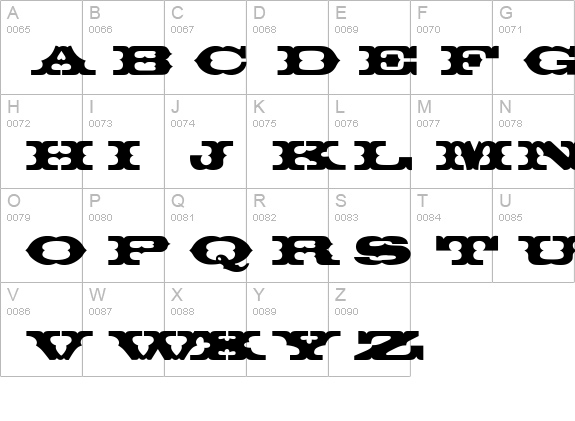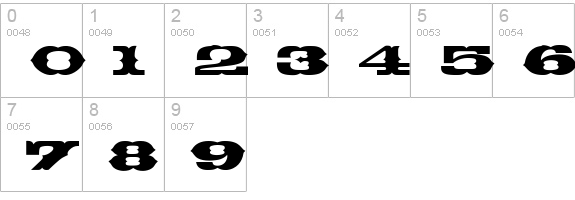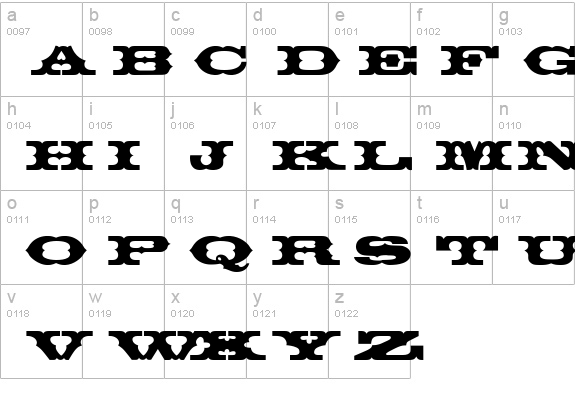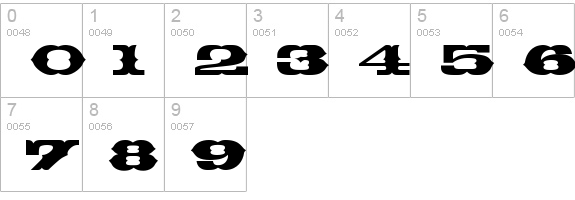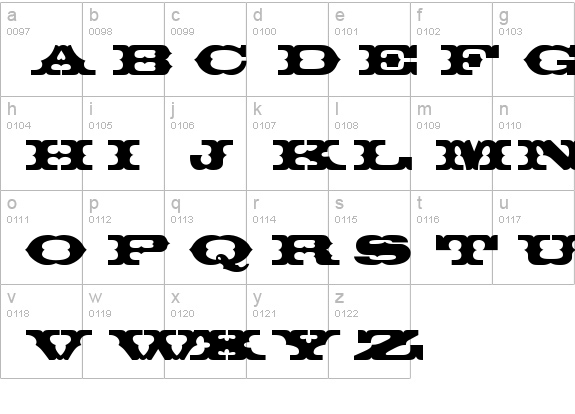
ThunderBay Font Details
Introducing ThunderBay, a bold and captivating font that will electrify your designs! This powerful typeface is the perfect blend of strength and elegance, making it ideal for a wide range of creative projects. Whether you're designing a striking poster, crafting a stunning logo, or creating eye-catching headlines, ThunderBay will make a lasting impression. With its strong, angular letterforms and dynamic presence, ThunderBay commands attention and adds a touch of excitement to any design. Its clean lines and balanced proportions give it a contemporary and versatile appeal, making it suitable for both digital and print applications. But what sets ThunderBay apart from other fonts is that it is not only visually striking, but also freely available to download at FontsMarket.com. Yes, you heard it right – ThunderBay is completely free! This means that you can unleash your creativity without any cost barriers, allowing you to experiment and explore the endless possibilities this font has to offer. Whether you're a professional designer or a creative enthusiast, ThunderBay is the perfect choice for adding a touch of energy and sophistication to your projects. So why wait? Download ThunderBay today at FontsMarket.com and let your designs roar with power and beauty!